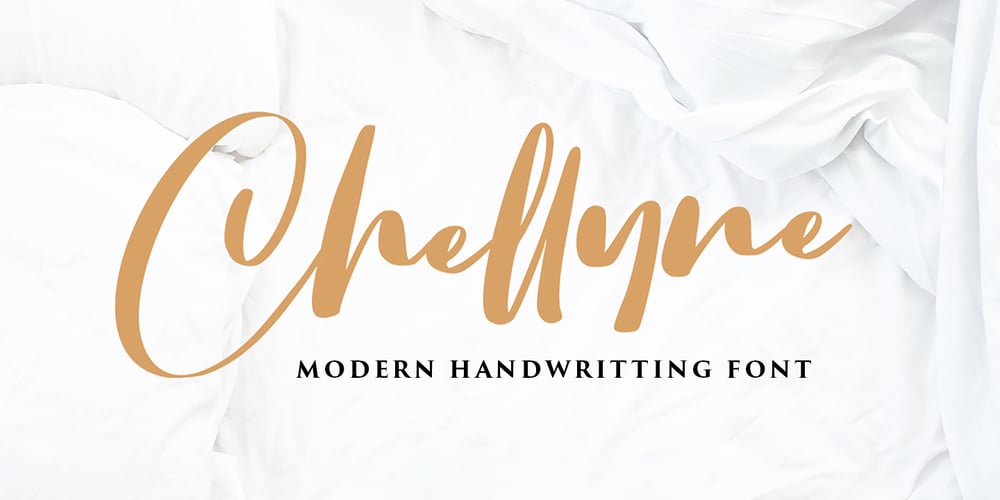
Chellyne Font Family was designed by Virgiawan Listanto and published by Stringlabs Creative Studio. Chellyne contains 1 styles and family package options. Chellyne is a sweet, soft hand-lettered handwritten font. Fall in love with its authentic feel and use it to create gorgeous wedding invitations, beautiful stationary art, eye-catching social media posts, and cute greeting cards. The Chellyne font is a great choice to increase the prominence in your project. Although the typography is traditional, the basic elements are great.